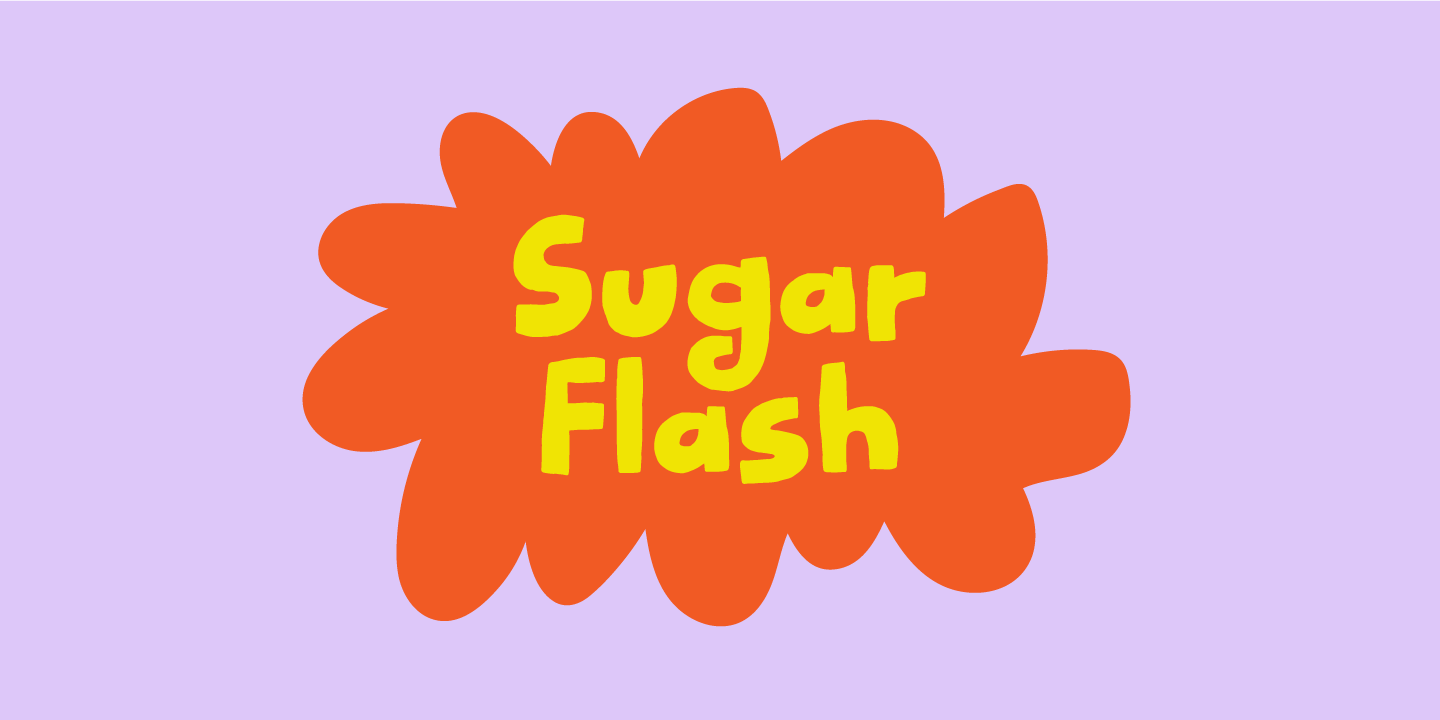
Sugar Flash Font is perfect for candy companies, energy drink brands, children's party supplies, gaming interfaces, comic book designs, vibrant advertising campaigns, youth-oriented products, entertainment venues, and any project requiring typography with explosive sweetness and electrifying visual energy.
What makes Sugar Flash Font exciting is its instant energy burst that captures the thrilling rush and explosive sweetness of sugar-powered excitement with dynamic letterforms that seem to crackle with electric vitality and candy-coated enthusiasm. This exhilarating typeface embodies the pure joy of sugar highs with bold, energetic characters that pulse with the same intensity as lightning bolts and candy explosions. The font's high-energy character and sweet sophistication make it perfect for brands targeting youth markets, entertainment industries, and products that deliver instant gratification and explosive fun.
The Sugar Flash Font family includes regular and bold weights, featuring complete uppercase and lowercase alphabets, numerals, punctuation marks, and electric candy-inspired design elements. The font maintains consistent explosive energy throughout all weights while ensuring excellent readability for both electrifying headlines and sweet text applications in entertainment and youth-focused contexts.
Whether you're designing for confectionery brands, creating high-energy gaming materials, or developing youth entertainment branding with explosive aesthetics, Sugar Flash Font Free Download brings unmatched energetic excitement and sweet sophistication to your projects. This dynamic typeface transforms ordinary text into explosive expressions of fun and energy that capture the instant rush of sugar-powered adventures. The font's electrifying character makes it ideal for candy manufacturers, energy brands, and youth entertainment companies. Download this exceptional font today and bring the explosive sweetness of sugar-charged energy to your design projects with authentic high-voltage excitement and candy-powered visual brilliance.